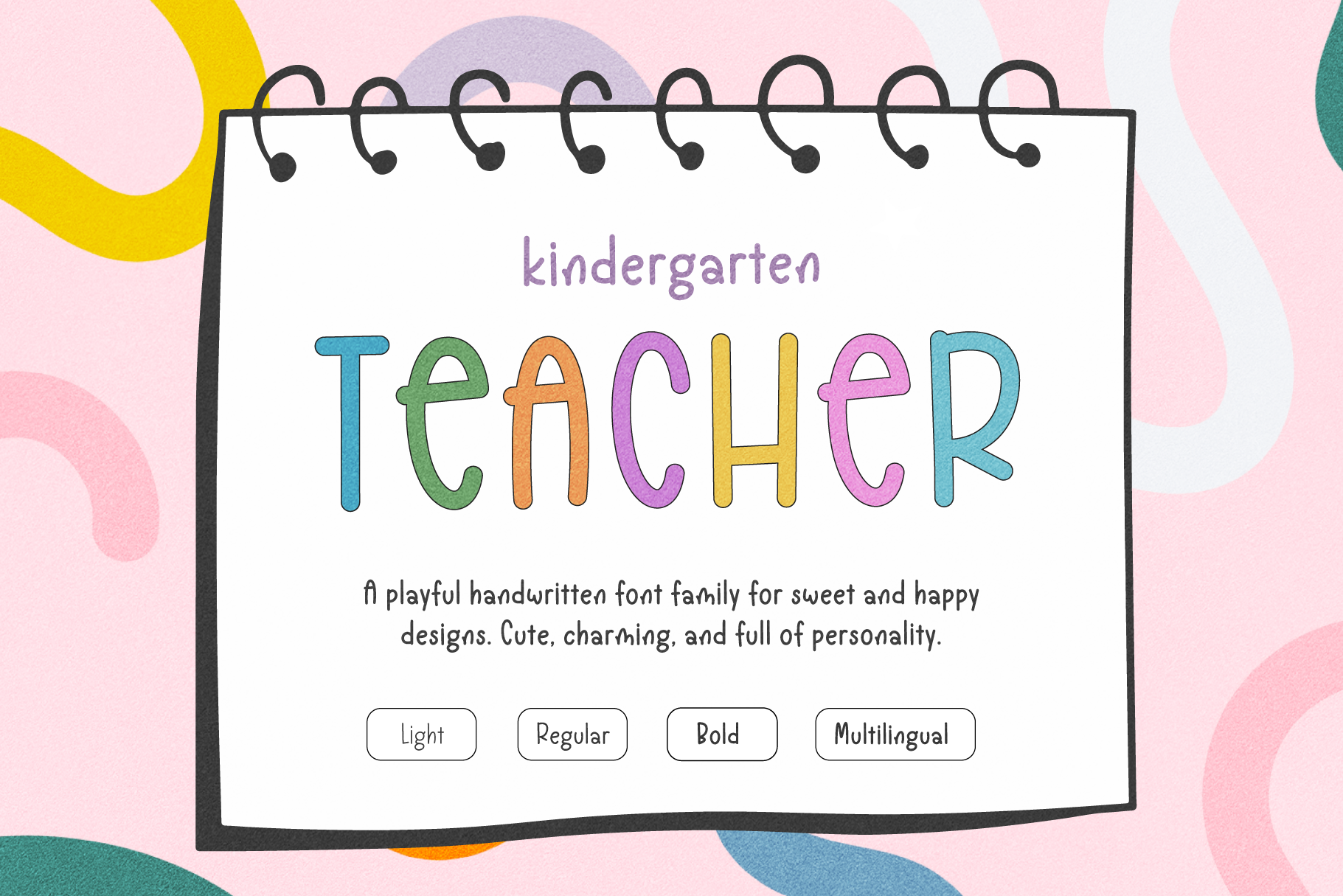
Kindergarten Teacher Font
Introducing Kindergarten Teacher, a cute handwriting font that brings warmth and personality to your designs. It is great for back to school projects, invitations, greeting cards, logos, branding, social media, printed goods or anything that requires simple and cute handwritten lettering.
This versatile font comes in three weights: light, regular, and bold and it has international characters.
• Cute handwriting style
• Standard characters (lowercase, uppercase, numbers, punctuation)
• Multilingual Support